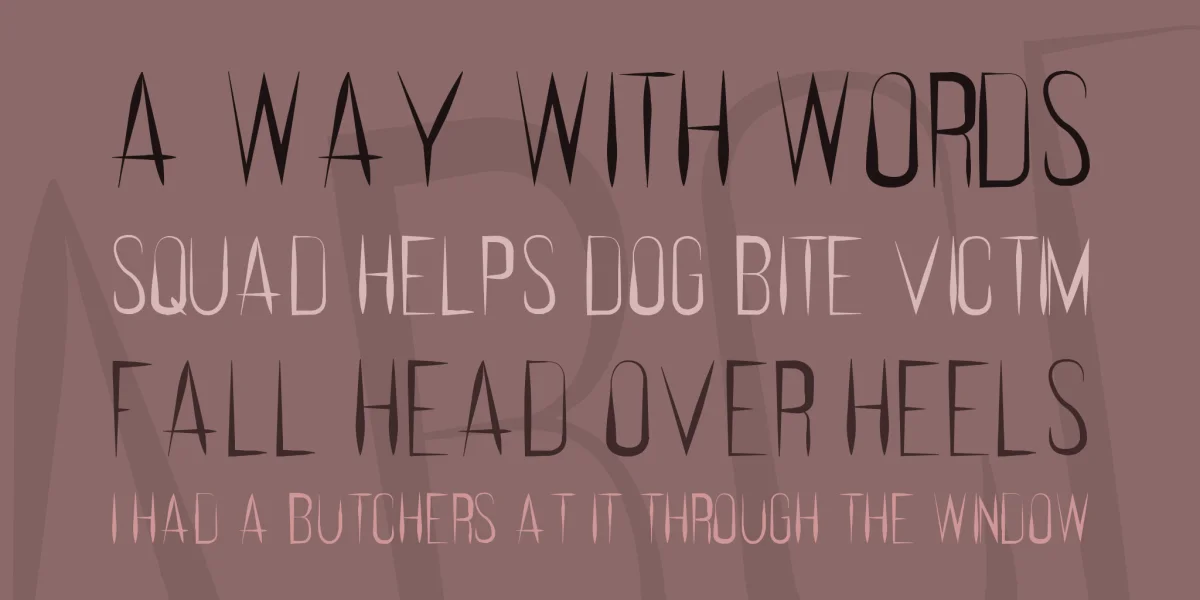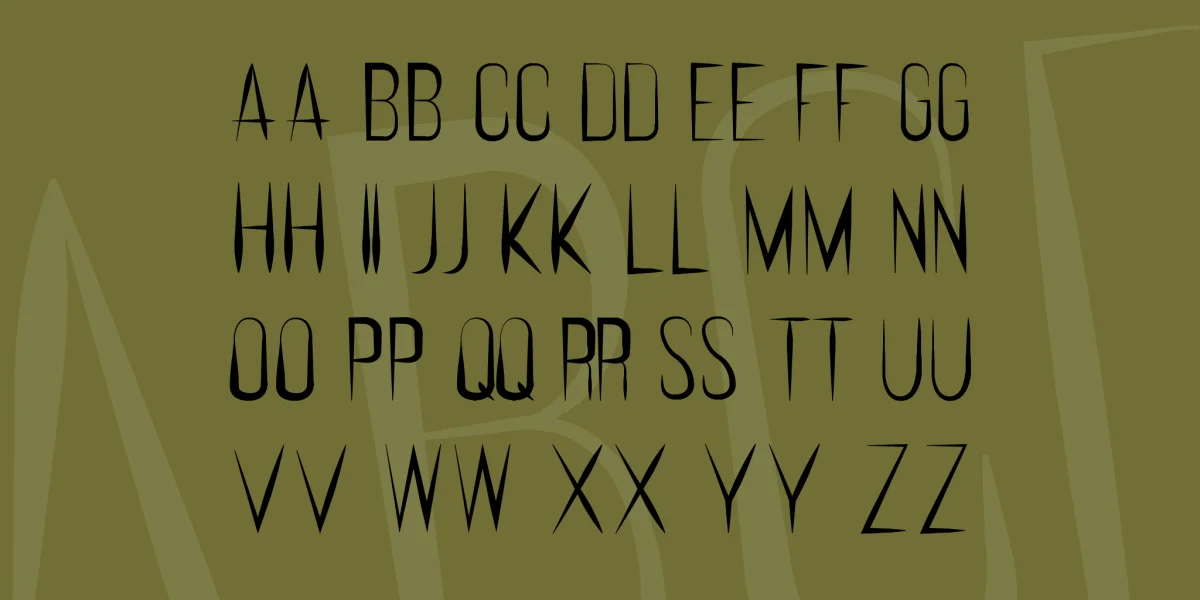
A typeface created to put the scary and repulsing into your headings. Condensed and creepy. Long sharp teeth penetrating an animals skin around midnight. Inspired by Tim Burton, created on impulse - Feral typeface.